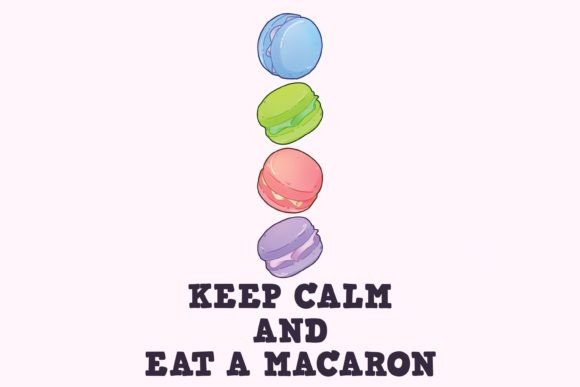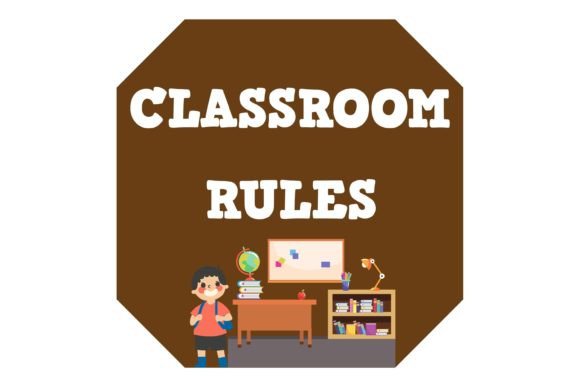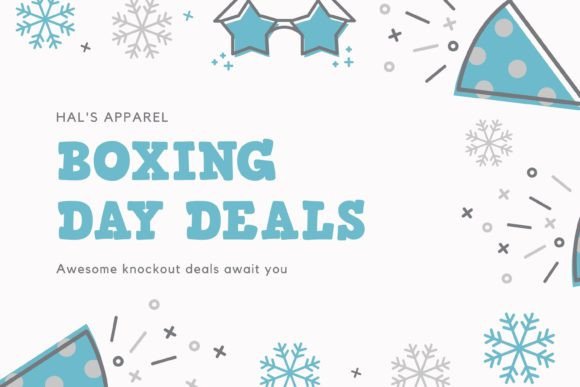
Mr.james Font
Mr.James is a serif cartoon display font. It is easy to read, and perfect for kid artworks. It looks good on poster designs, stickers, t-shirts, or any school-related projects.